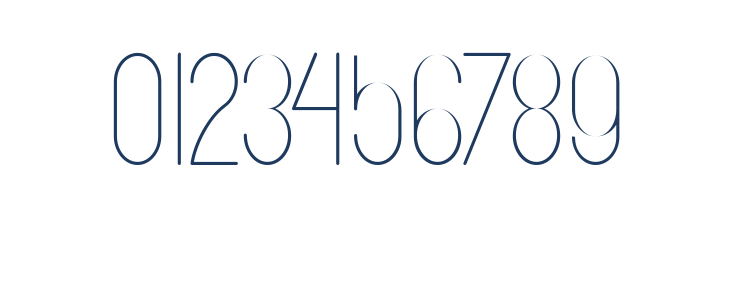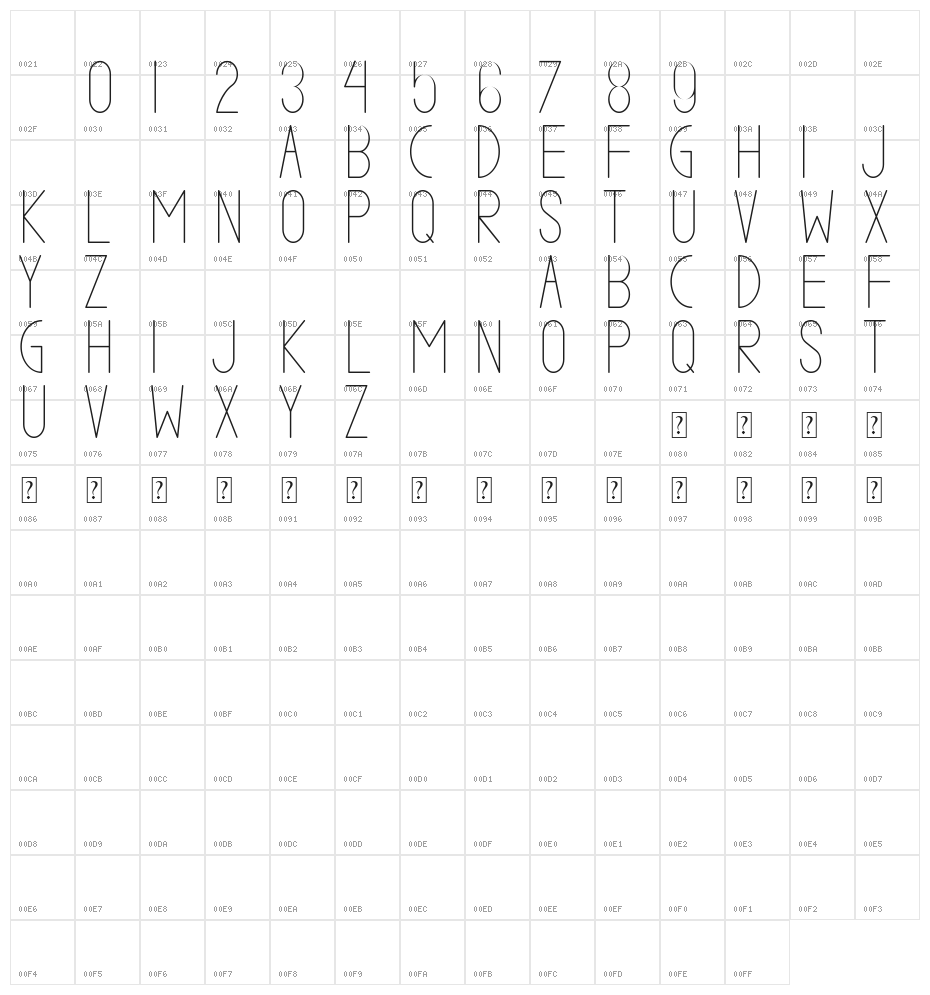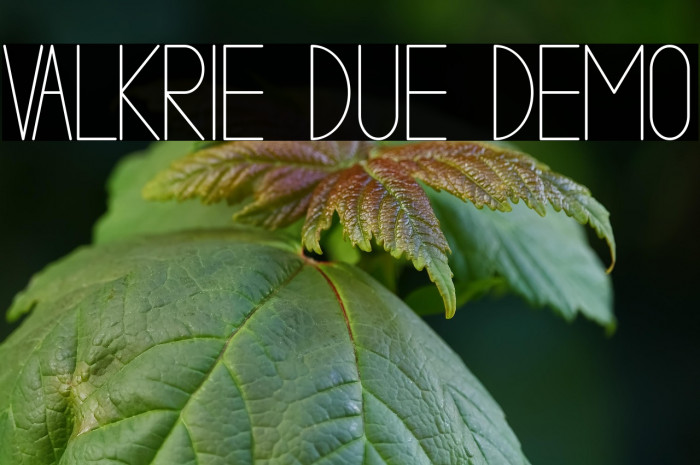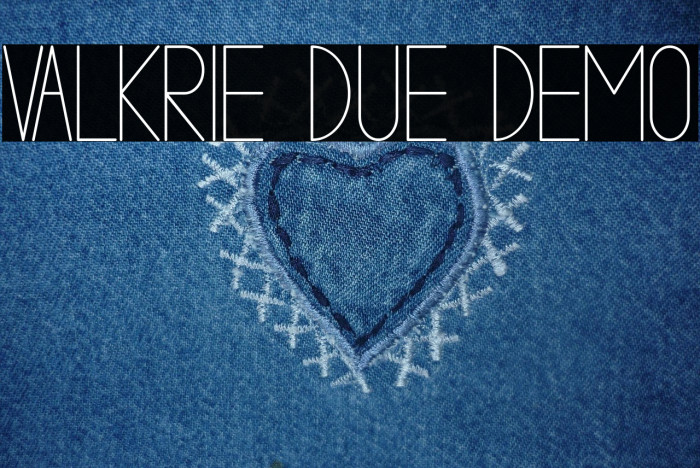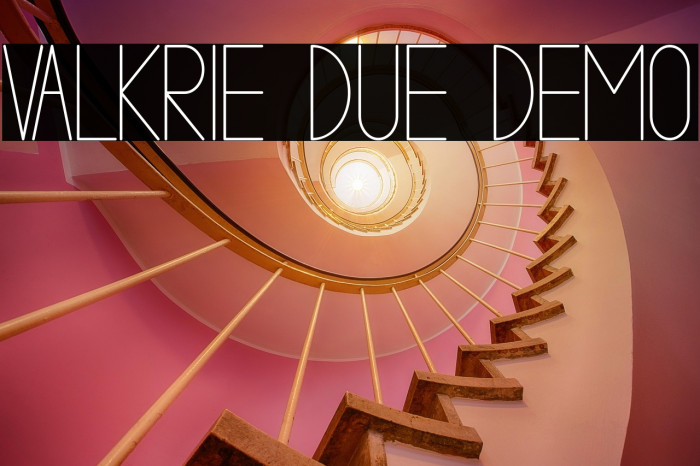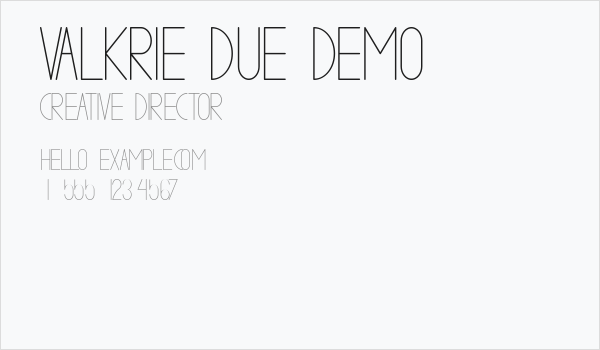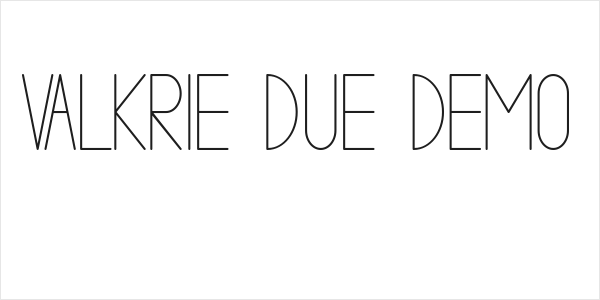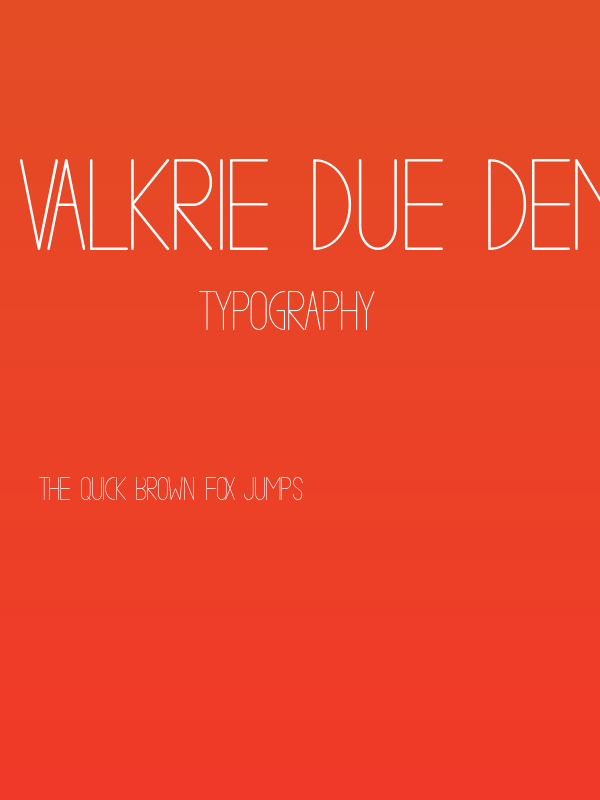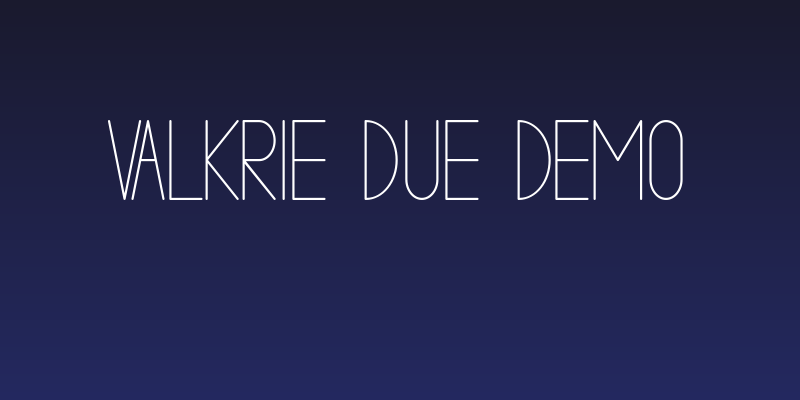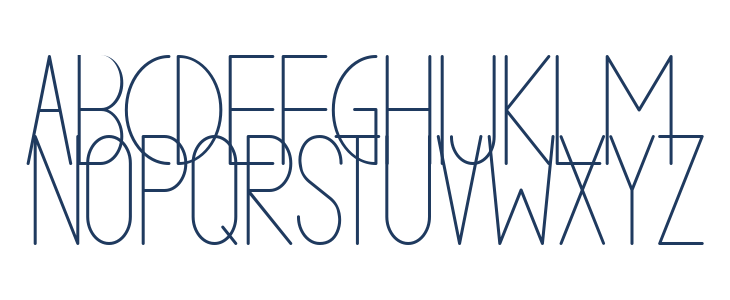
VALKRIE DUE demo Font
VALKRIE DUE demo Description
This font features a modern and sleek design with thin, elongated letterforms that convey a sense of elegance and sophistication. The characters are tall and narrow, with a consistent stroke width that gives the font a uniform appearance. The uppercase letters are particularly striking, with a geometric quality that enhances their visual appeal. The numerals and special characters maintain the same stylistic elements, ensuring a cohesive look across all text. This font is ideal for projects that require a contemporary and stylish touch.
| Proposed Projects | Ideal for fashion magazines, luxury branding, modern websites, and minimalist design projects. |